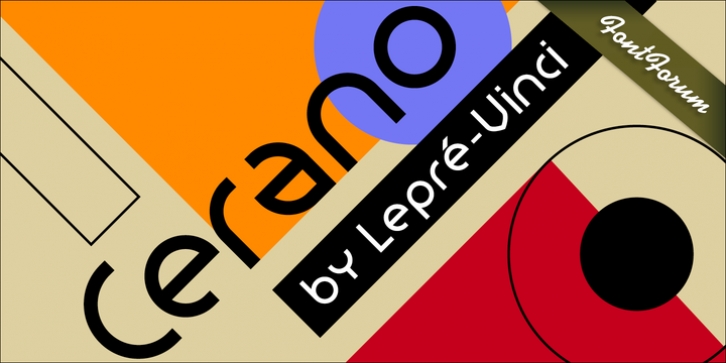
Cerano contains elements of the Bauhaus and Art Deco era, and maybe even reminds a bit of the sternness of Black Letter type. Still, it is new and original with a very distinguished personality. The straightforwardness of the purely geometric design deep-rooted in modern typography makes Cerano unique. Round, wide and firm, almost martial yet non-compliant, it moves through the rows called text lines. Despite being wide and firm, it is constructed by circles and rolls with perfect balance demonstrating a unexpected dynamic. Cerano is a typeface of masculine and impulsive traits, just waiting to be printed.